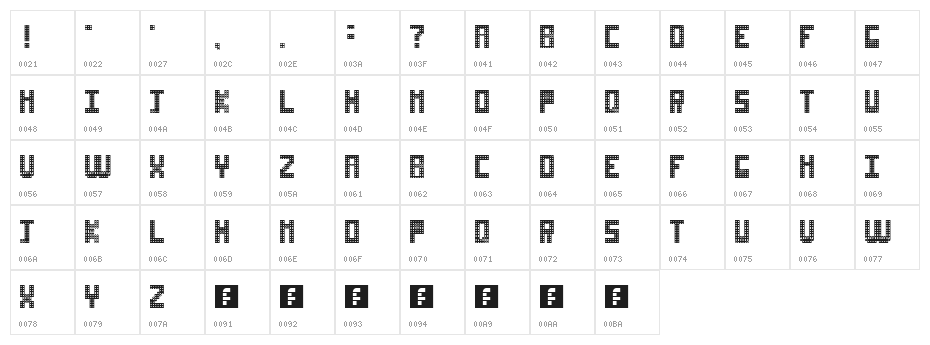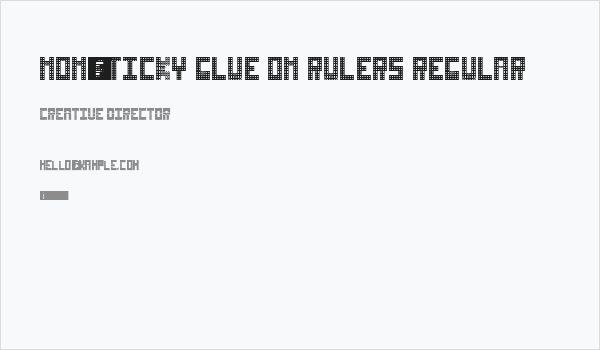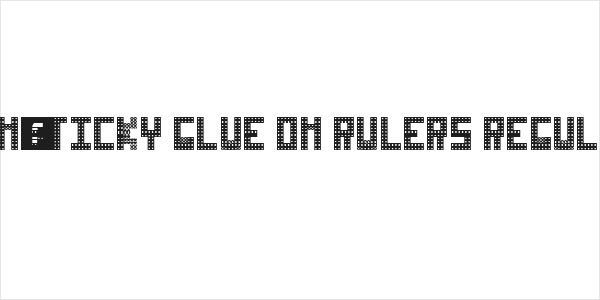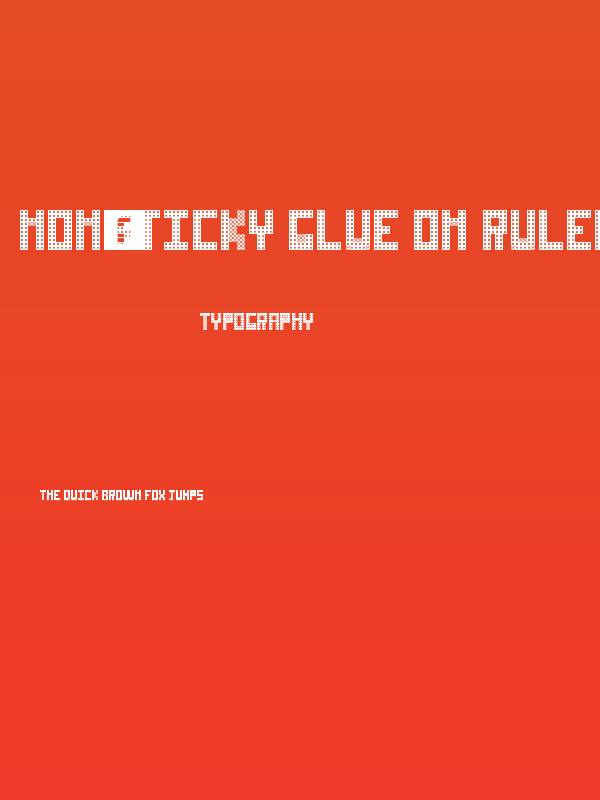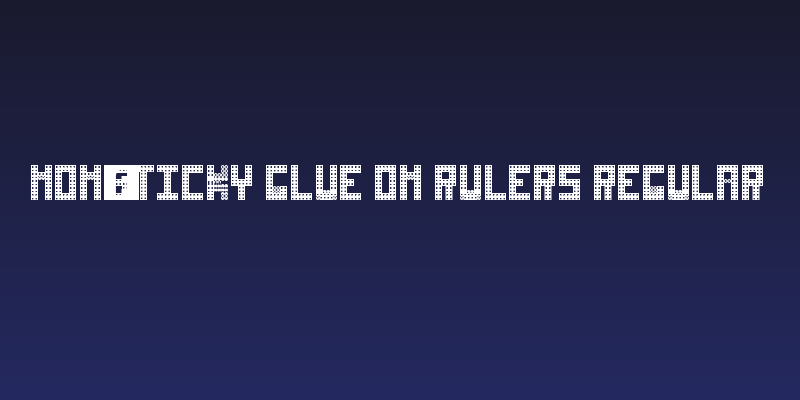
Non-sticky glue on rulers Regular Font
Non-sticky glue on rulers Regular Description
This font features a unique, dotted pattern that gives each character a playful and distinctive appearance. The letters are constructed with a series of small, evenly spaced dots, creating a pixelated effect that is both modern and retro. The uppercase and lowercase letters maintain a consistent style, with clean lines and a geometric structure. The numbers and special characters follow the same design, ensuring a cohesive look across all glyphs. This font's bold and decorative nature makes it stand out, perfect for projects that require a touch of creativity and fun.
| Proposed Projects | Ideal for digital art, posters, children's books, and creative branding. |